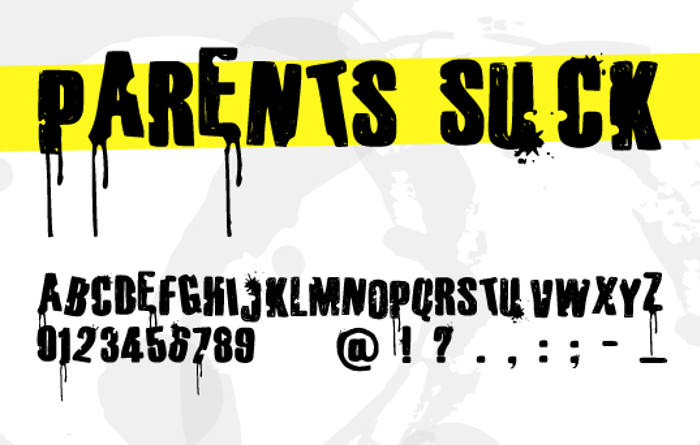
Parents Suck Font
I have nothing against parents :D
Parents Suck Font is a Dripping font and was created on . Parents Suck Font has been downloaded 119,347 times, added to 744 collections, and liked 33 times.